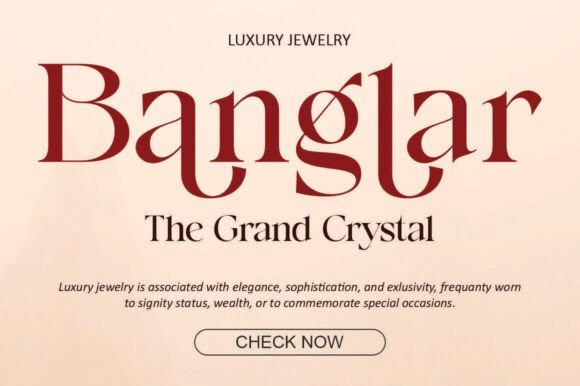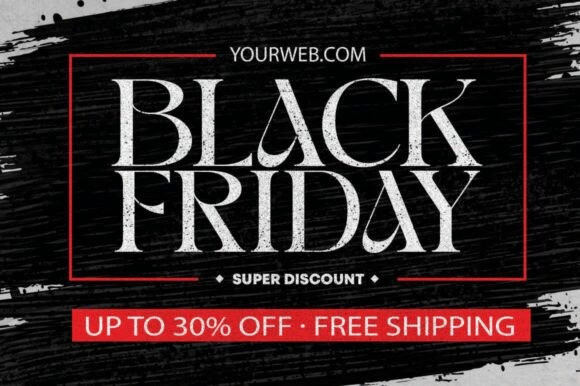
Leostut Font
Leostut Font is a harmonious and stylish contemporary serif typeface with a classic feel. It is a perfect choice for your various design projects such as editorial design, headlines, branding projects, Logo design, packaging, magazine titles, advertisements, short or long texts, web design, and more.